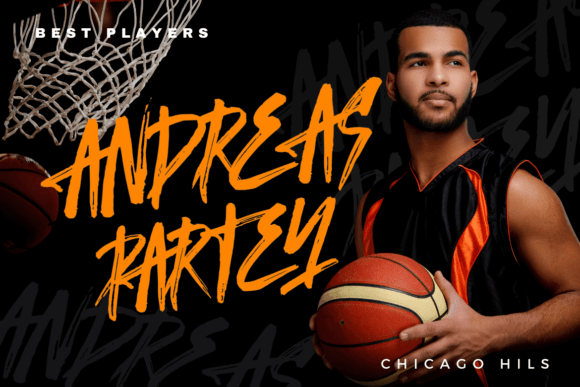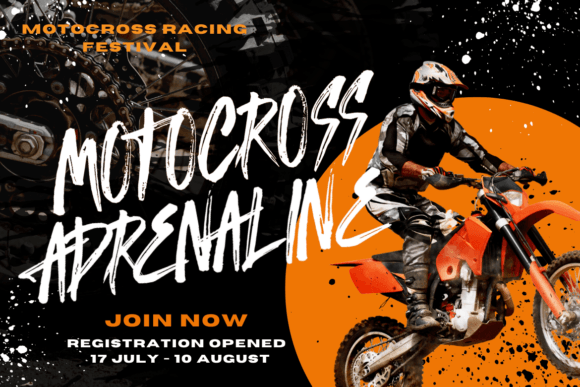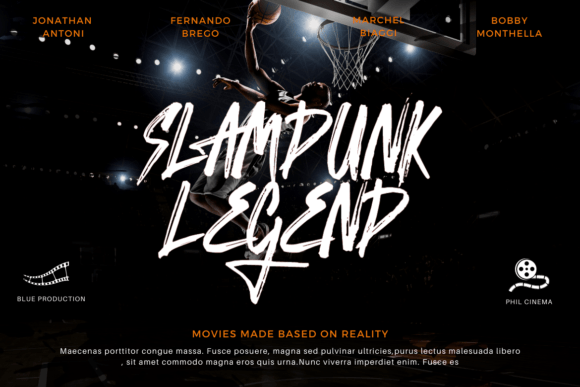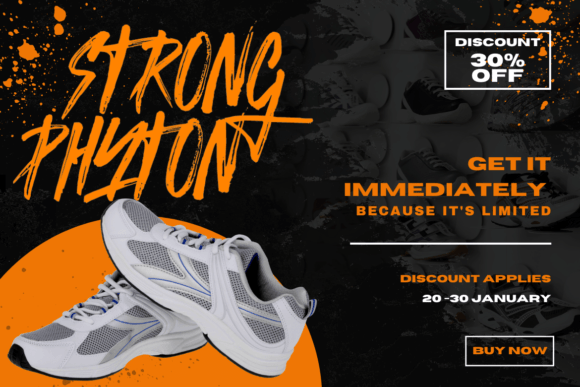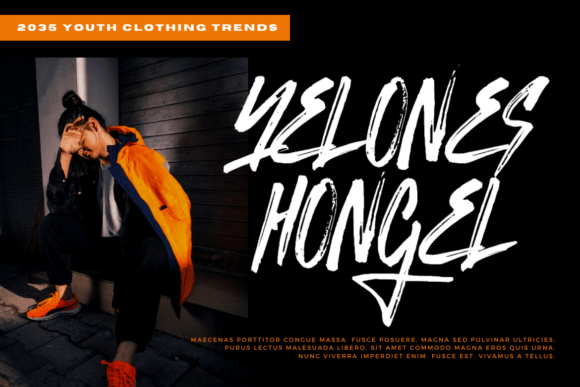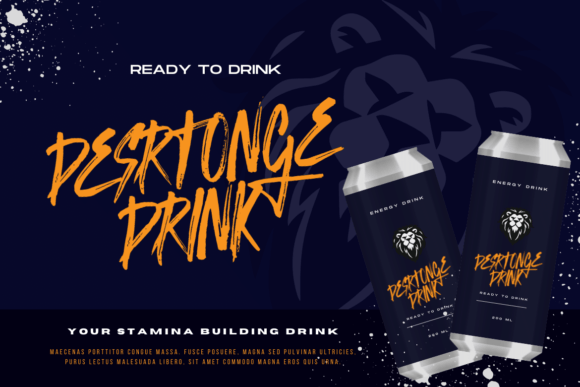
The Magic of Alyester Font: A Designer’s New Best Friend
I’ll never forget the time I was working on a project for a client who needed a custom greeting card design. I had all the elements ready – the graphics, the colors, the overall aesthetic – but I was stuck on finding the perfect font. That’s when I stumbled upon Alyester, a handwritten brush script font that looked and felt like it was written on a marker board. It was love at first sight! 💕
An Honest Review of Alyester Font
So, what makes Alyester so special? Let’s dive into the good stuff and, of course, a few quirks I’ve discovered along the way.
What I Love About Alyester ✨
- ✅ Authentic marker board feel: Alyester nails the casual, hand-written look that’s perfect for greeting cards, invitations, and motivational quotes.
- ✅ Highly legible: Despite its handwritten nature, Alyester is surprisingly easy to read, even at smaller font sizes.
- ✅ Versatile: This font can be used for a wide range of projects, from digital designs to print materials.
- ✅ OpenType features: Alyester comes with a range of OpenType features, including glyphs and stylistic alternates, which give you even more creative control.
- ⚠️ Limited use for body text: While Alyester is great for headlines and short paragraphs, it may not be the best choice for longer blocks of text.
- ⚠️ Some letters may require manual kerning: As with any handwritten font, you may need to adjust the kerning for certain letter combinations to get the perfect look.
One of the best things about Alyester is its range of OpenType features, including glyphs and stylistic alternates. These allow you to customize your text even further, adding a touch of personality to your designs.
The Backstory Behind Alyester Font
Alyester was designed with the intention of capturing the carefree, creative spirit of handwritten text on a marker board. Its creator wanted to craft a font that felt approachable, yet polished enough for professional designs. The result is a font that’s both charming and versatile.
Q: What type of projects is Alyester best suited for?
Alyester is perfect for projects like greeting cards, invitations, motivational quotes, and any design that needs a personal, handwritten touch.
Q: Is Alyester available in different weights or styles?
Currently, Alyester comes in a single weight, but its range of OpenType features and glyphs provide plenty of flexibility for customizing your text.